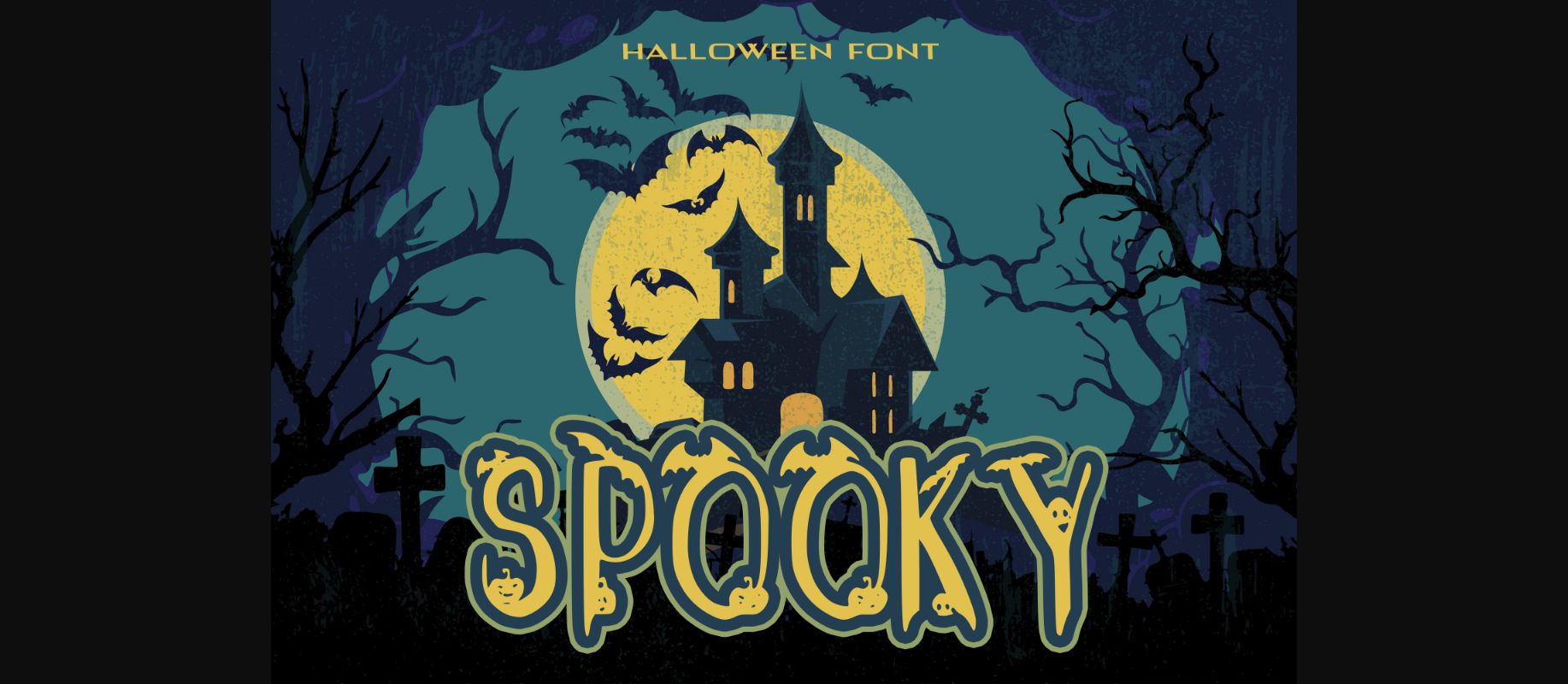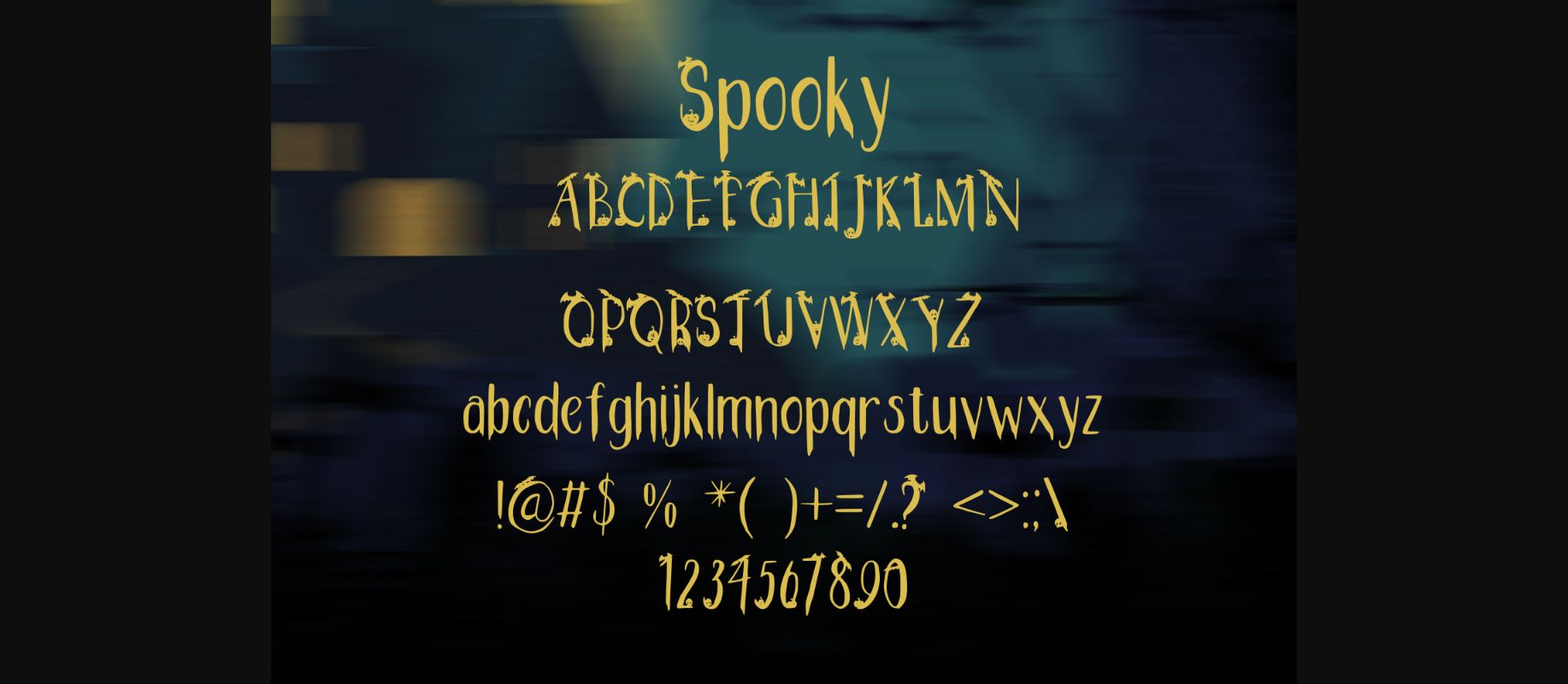
About Spooky Font
Spooky is an incredibly unique decorative font, featuring pumpkins and bats as ornaments. Distinct and quirky, this font will elevate each of your Halloween themed ideas!